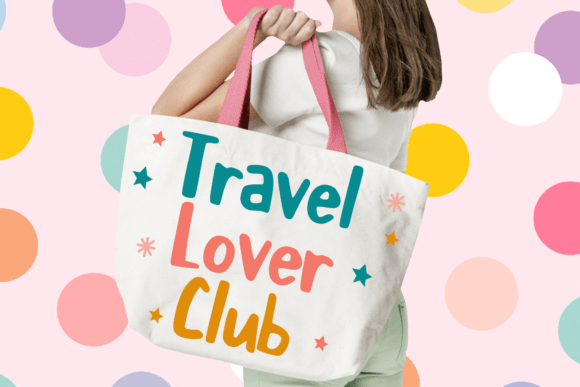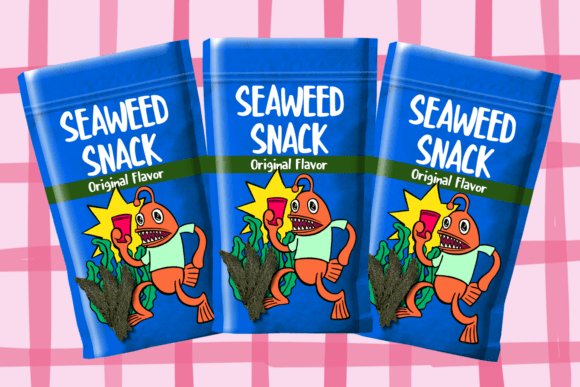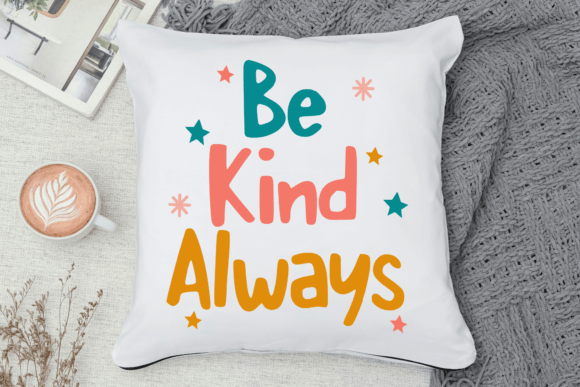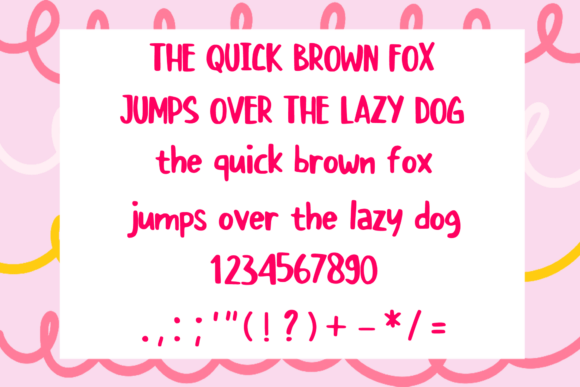
Introduction to Cute Blog Marker Font
Cute Blog Marker is a cute and playful comic marker font, suitable for designs that need casual writing looks.
It will elevate a wide range of design projects to the highest level You can use this font for many design ideas such as stickers, t-shirt designs, amazing logo designs, magazine or book covers, comics, cartoon drawings, daily typing, and many more.